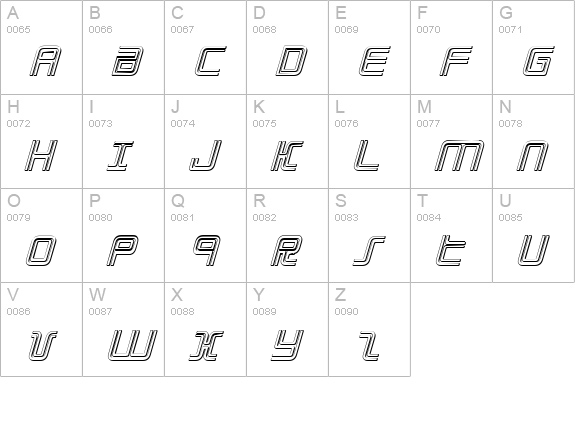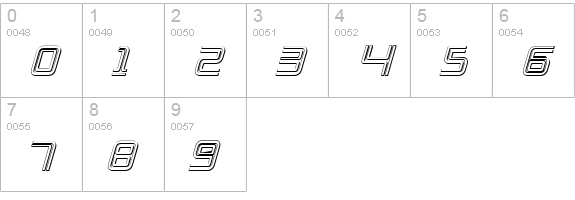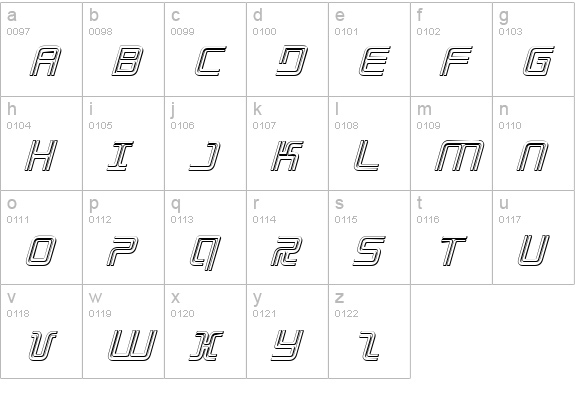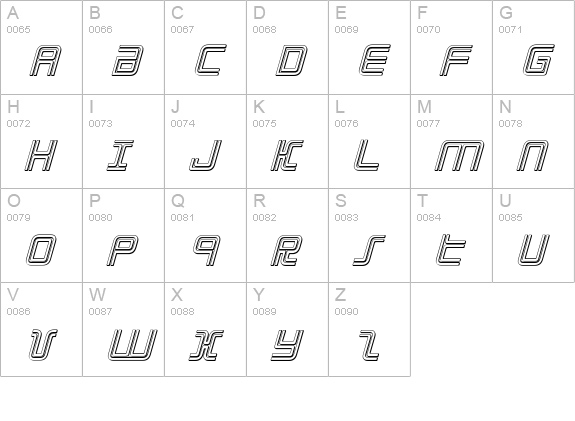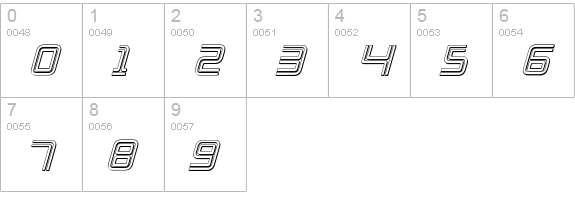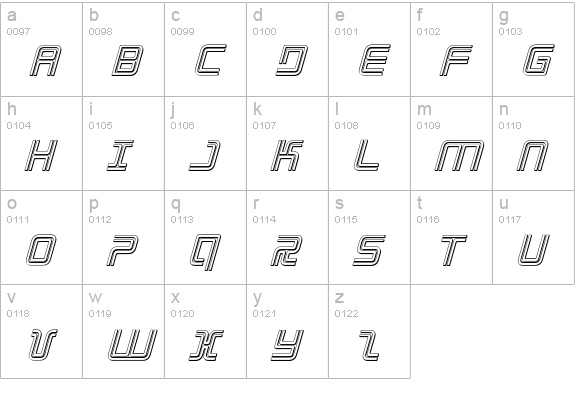
Election Day 3D Italic is a distinctive, italic variant in the Election typeface family \xE2\x80\x94 well suited to design and typography projects.
Election Day 3D Italic font is a bold and dynamic typeface designed to make a statement. With its sleek and modern design, this font is perfect for projects that demand attention and style. The 3D effect adds depth and dimension, creating a visually striking appearance. Best of all, Election Day 3D Italic font is available for free download at FontsMarket.com. This means you can easily add this unique font to your collection without any cost. Whether you're working on a poster, flyer, or logo, this font will surely make your design stand out. Download Election Day 3D Italic font today and elevate your projects with its eye-catching style.